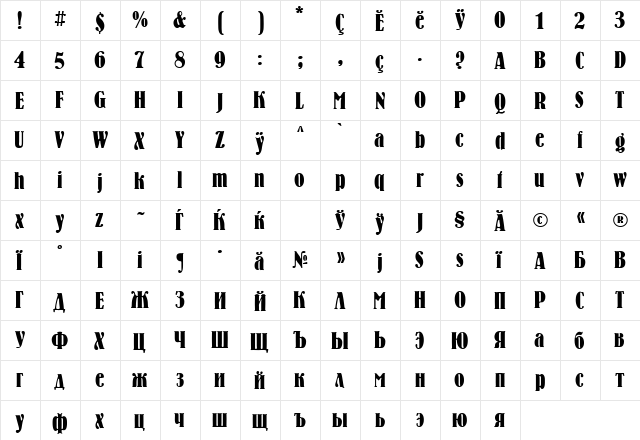
Bernhard_chu Normal
Design Context for Bernhard_chu Typeface
Bernhard_chu offers clean, dependable letterforms without strong stylistic allegiance, making it a practical choice for designers who need flexibility.